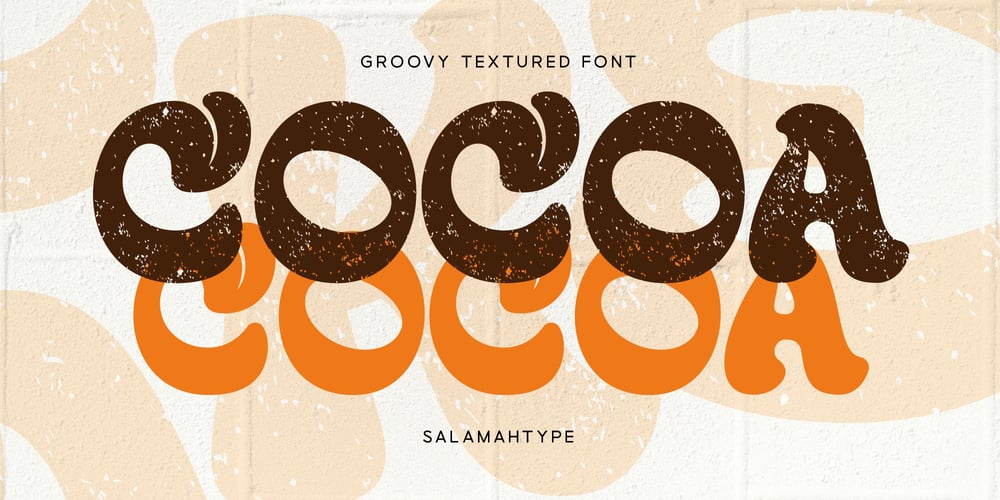
Cocoa Font Family was designed by Aswangga Sadike and published by Salamahtype. Cocoa contains 1 styles and family package options. Introducing Cocoa, a fun and groovy font with cute shapes, perfect for branding food, drinks, and restaurants. With support for multiple languages and some cool alternates, Cocoa brings a fresh, playful vibe to any design.Features : Uppercase – All Caps Grunge Style Lowercase – All Caps Clean Style Numbers and Symbols Alternates Multilingual Support